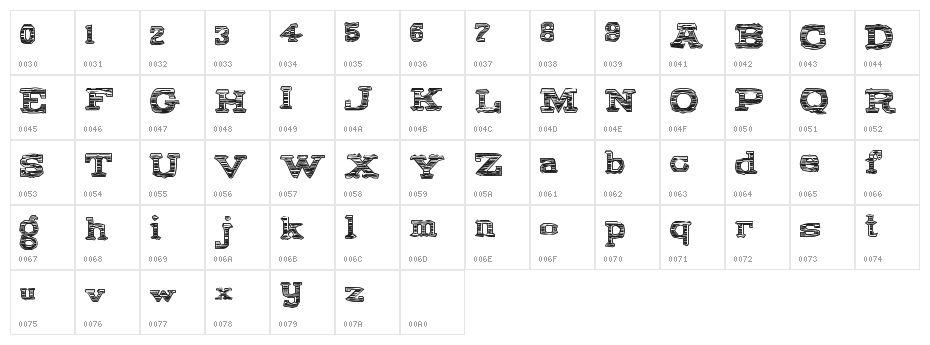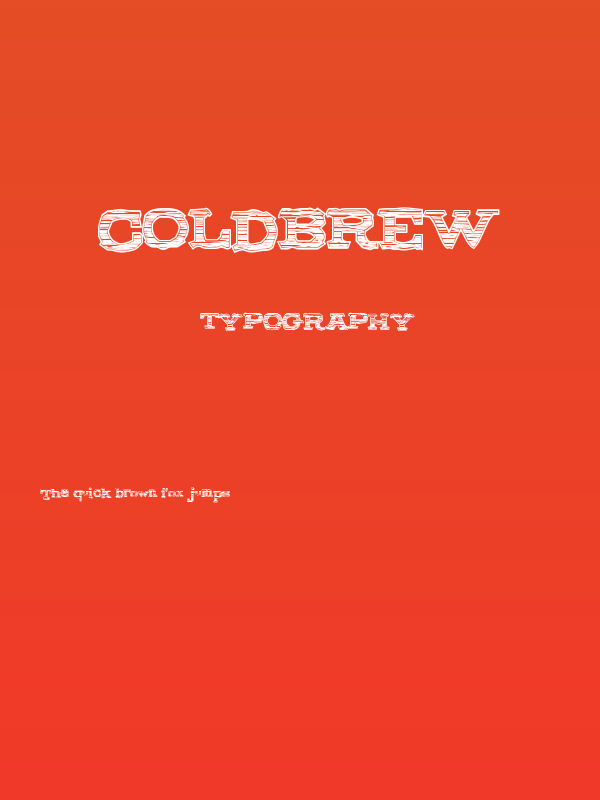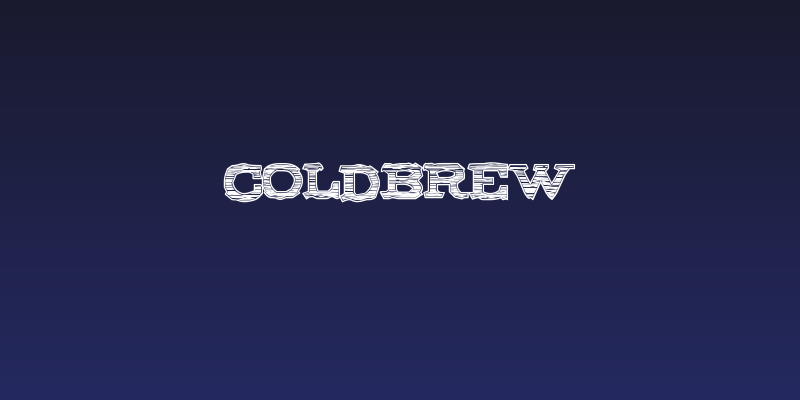
ColdBrew Font
ColdBrew Description
This font features a bold, decorative style with a three-dimensional appearance. Each character is outlined with a thick, black border and filled with intricate, parallel lines that create a sense of depth and texture. The uppercase and lowercase letters maintain a consistent design, with sharp angles and geometric shapes that give the font a modern, industrial feel. The numbers and special characters follow the same design principles, ensuring a cohesive look across all glyphs. This font's unique style makes it stand out, perfect for projects that require a strong visual impact.
Overall StyleModern, Industrial
Use CaseHeadlines, Logos, Posters
Proposed ProjectsIdeal for posters, logos, branding, and any design that requires a striking, modern aesthetic.